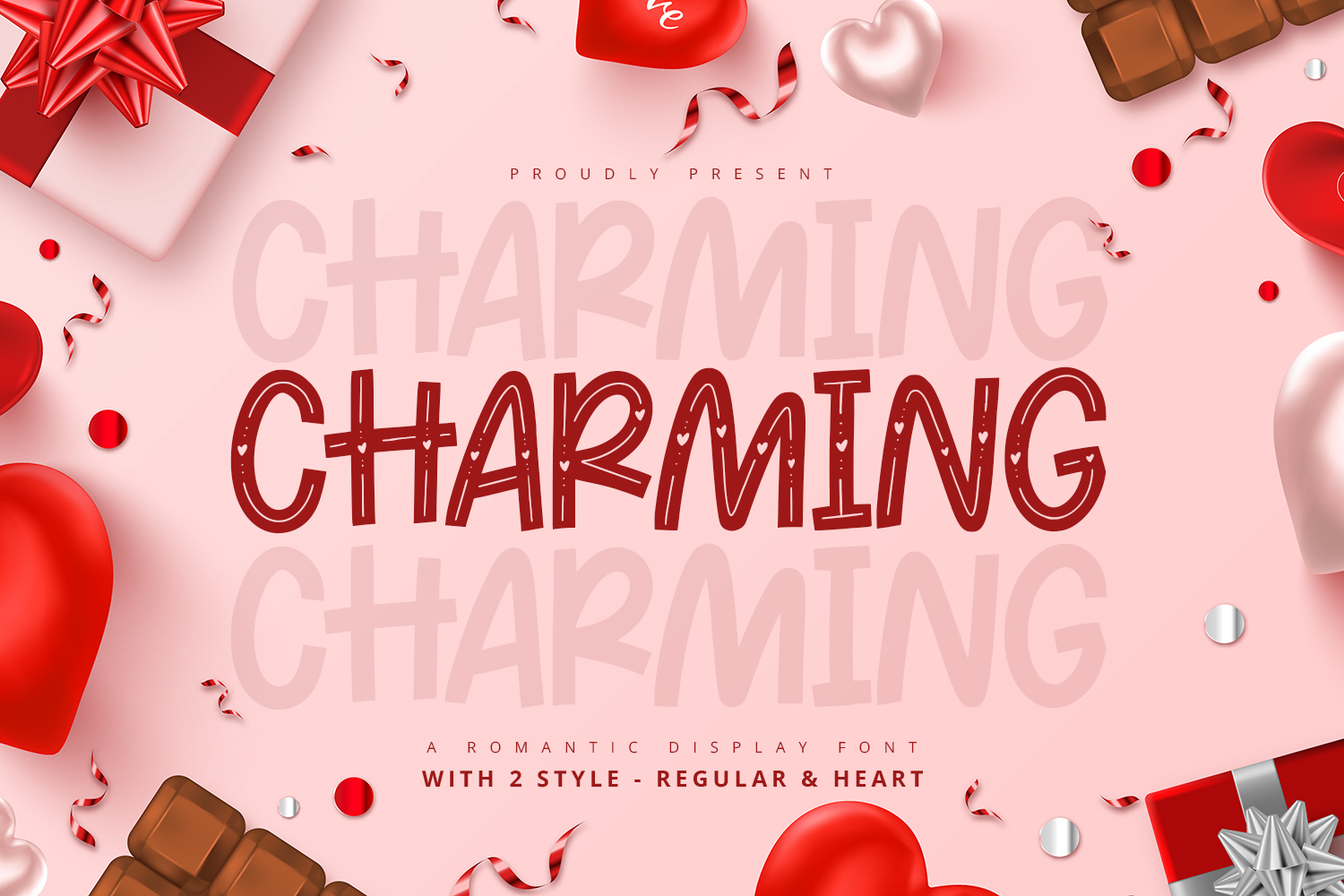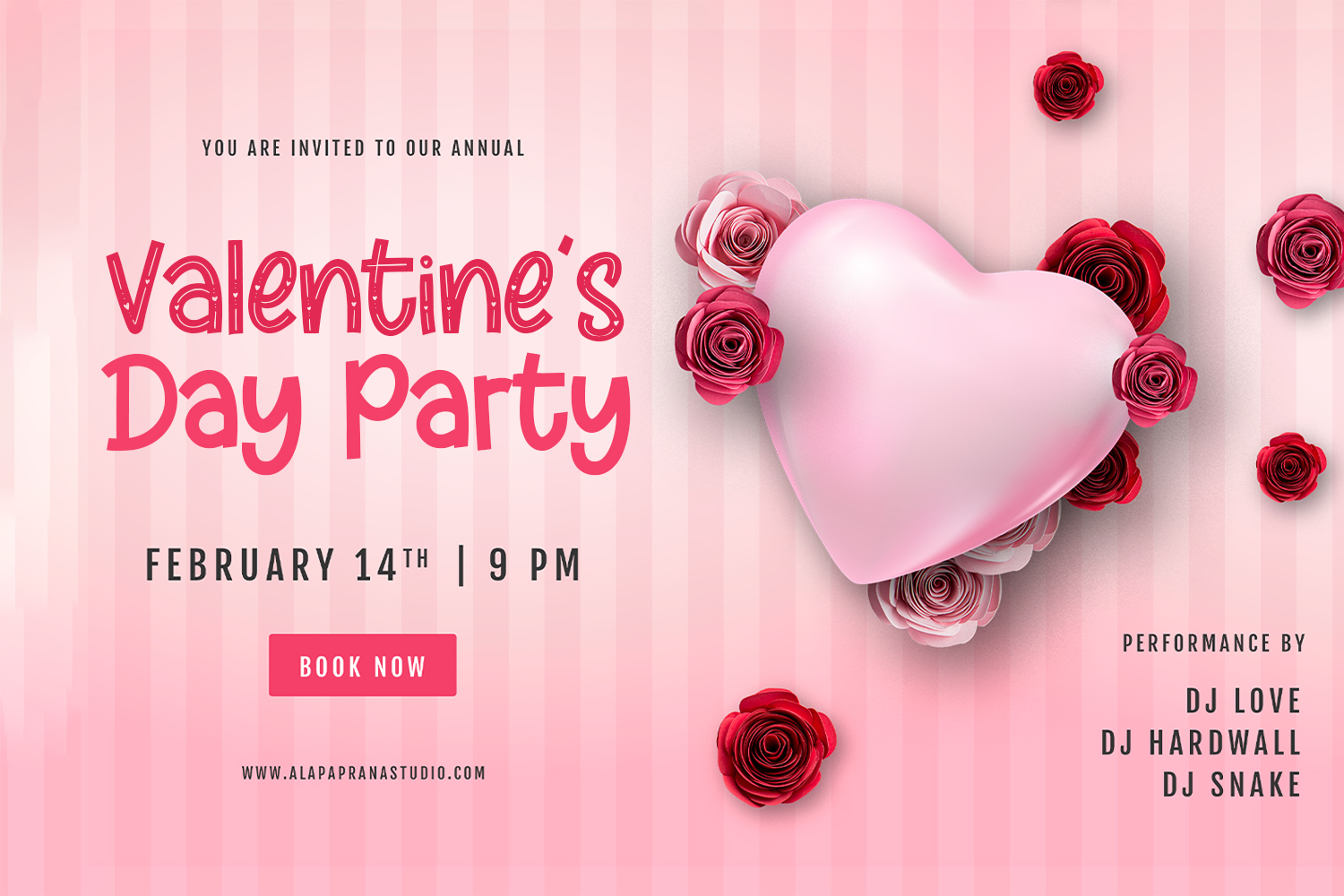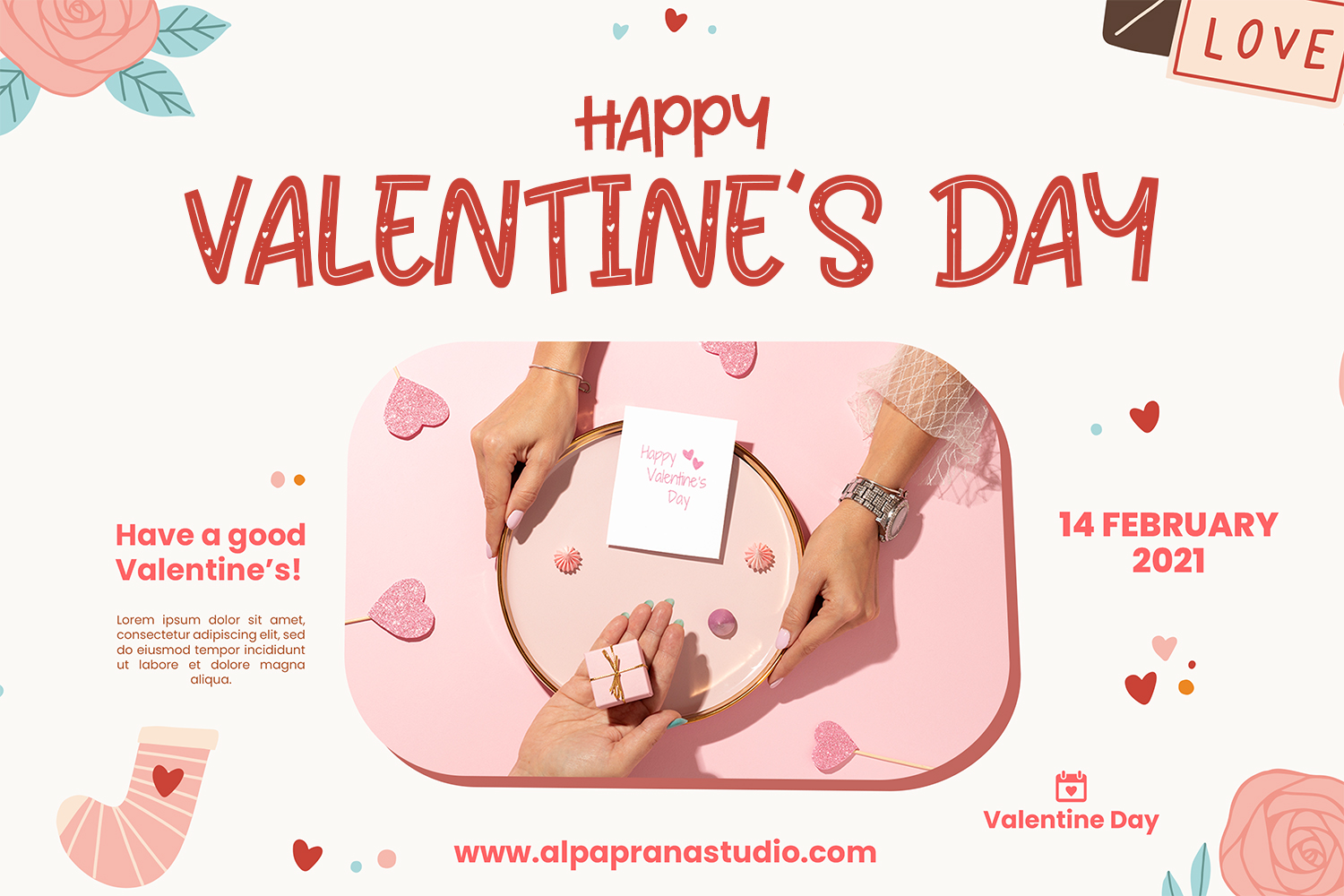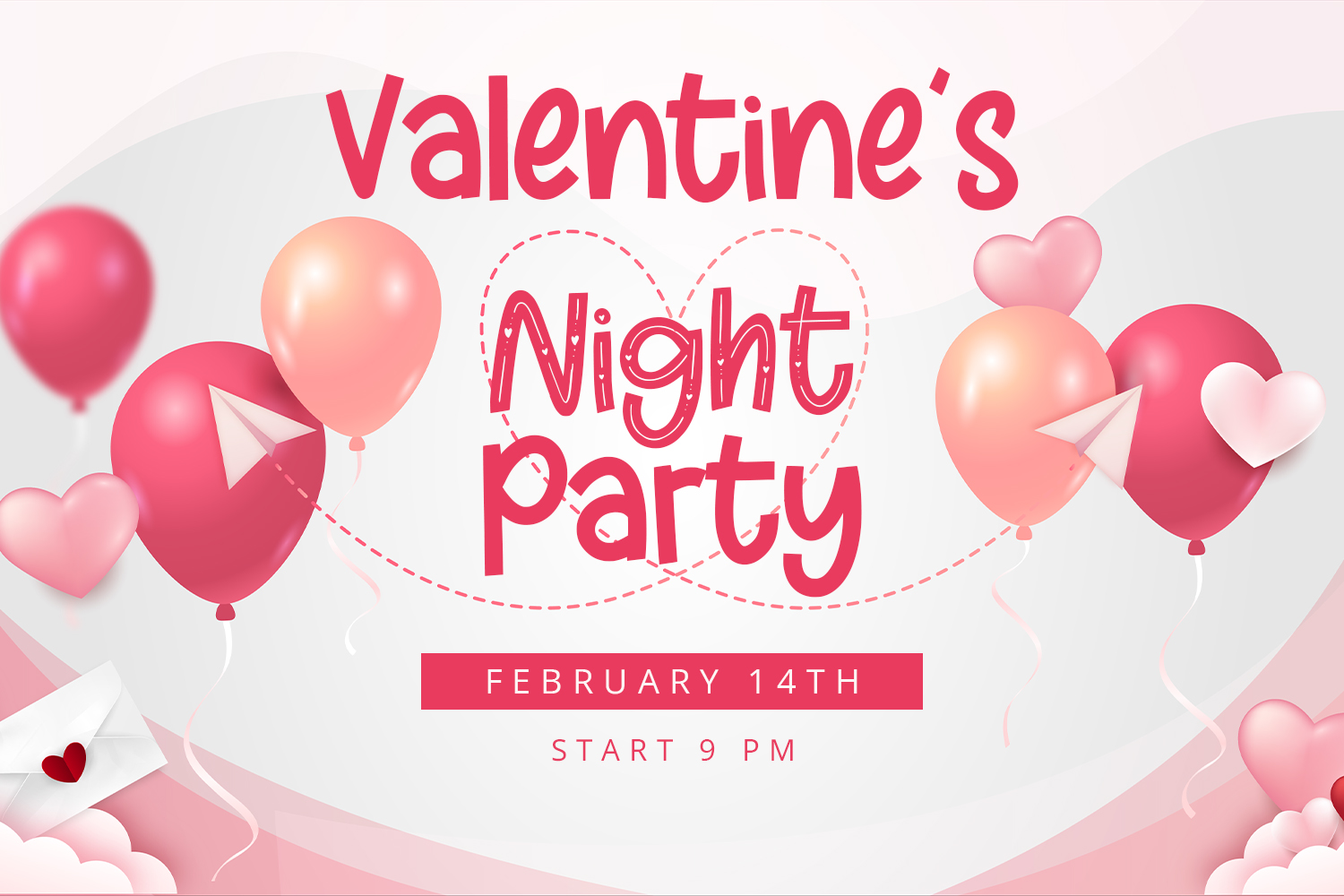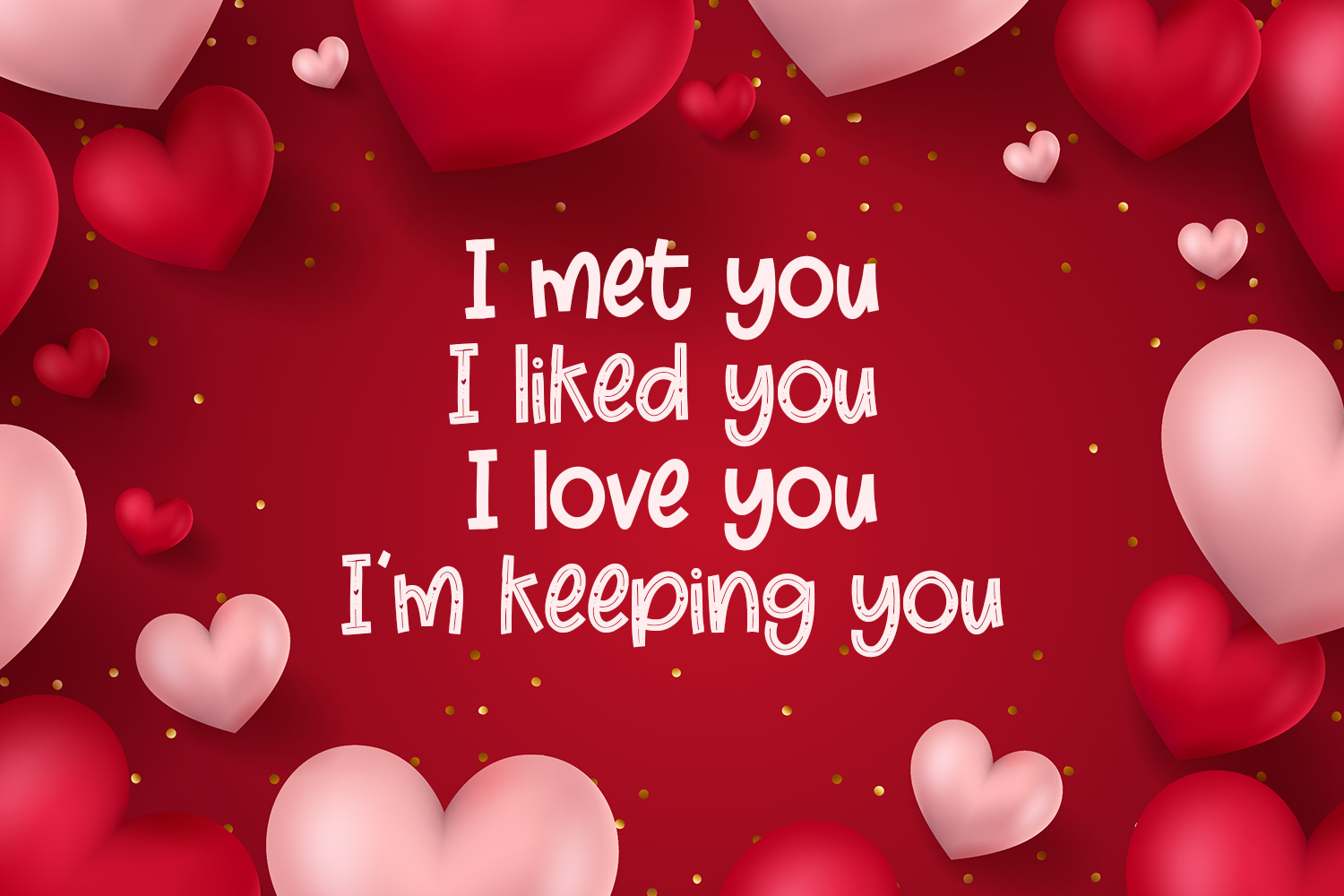
Charming Free Font
Charming Free Font is a true embodiment of romance and charm. Its whimsical and playful letters, with their elegant curves and soft edges, create a feeling of warmth and affection. This font is perfect for invitations, posters, and other projects that aim to evoke a sense of love and enchantment. Its playful nature and charm are sure to delight and captivate any viewer.